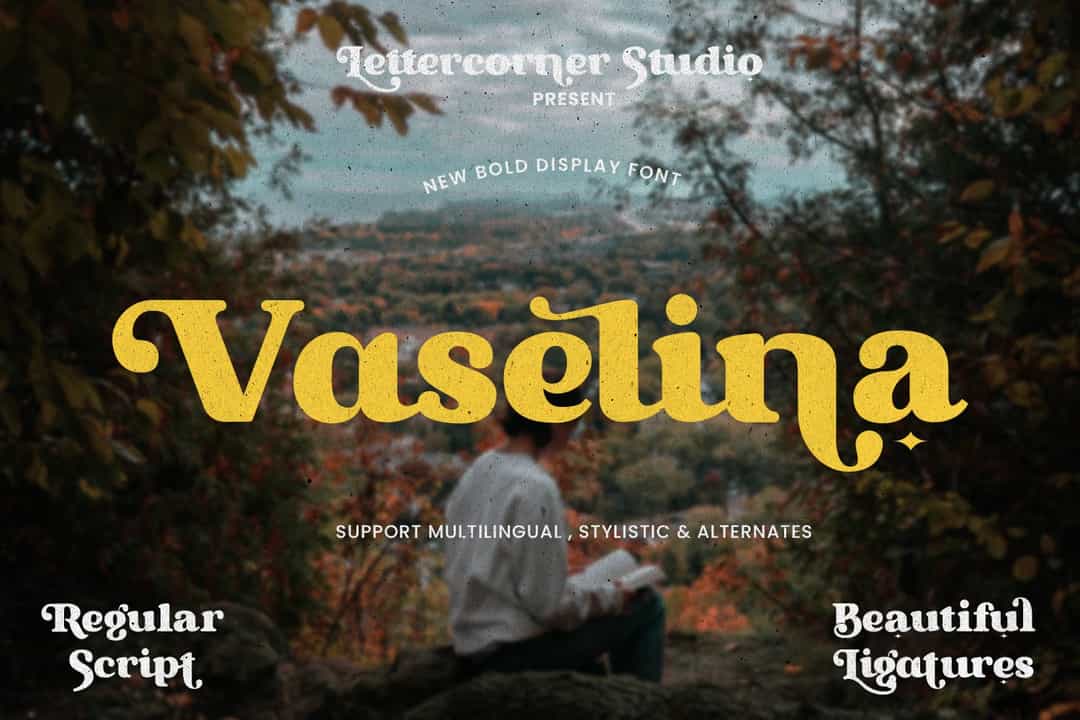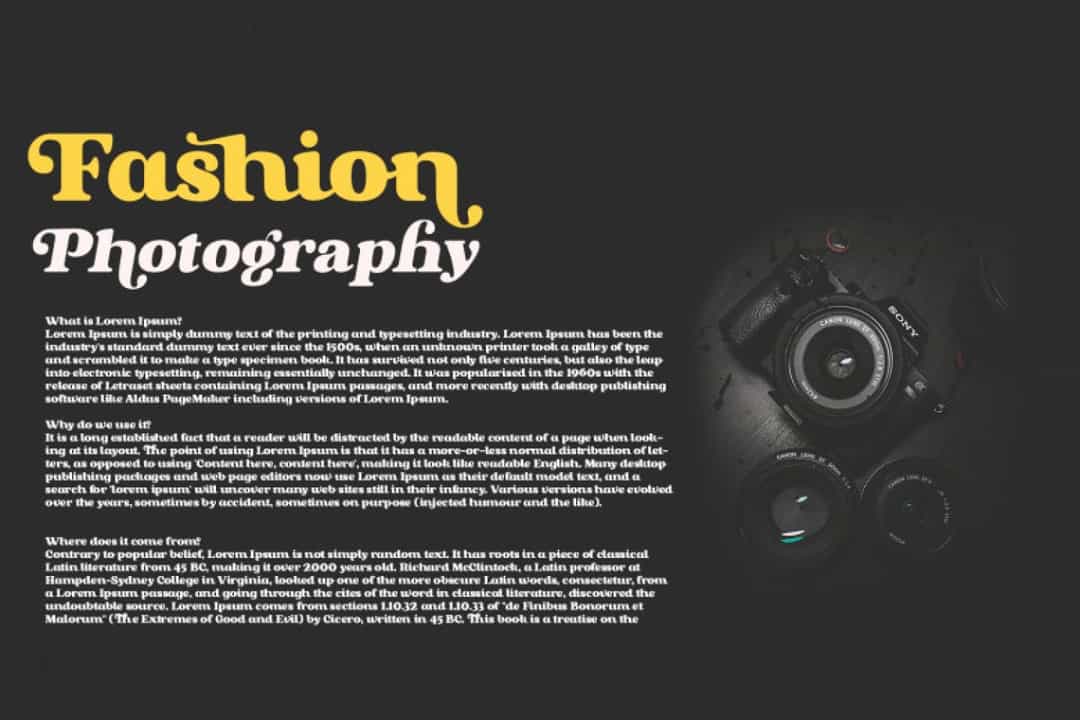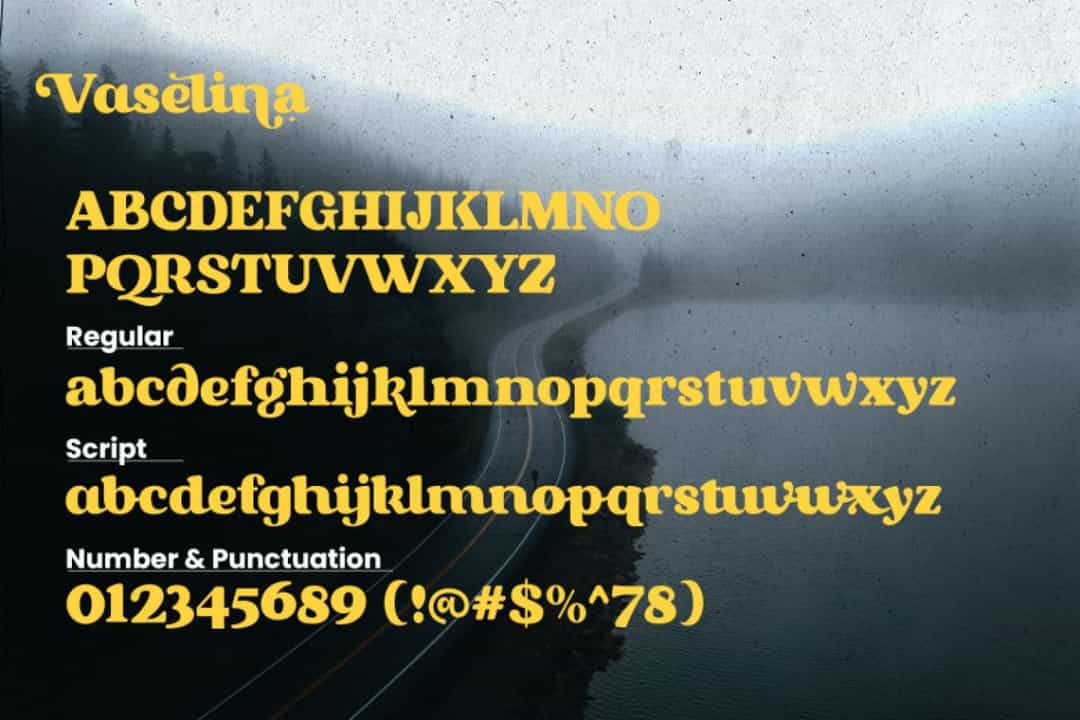
Vaselina is an elegant old-fashioned serif typeface, boasting both vintage and modern elements in its appearance. Equipped with additional glyphs to give designers more choices when creating designs, its classy and sophisticated appearance make Vaselina stand out.